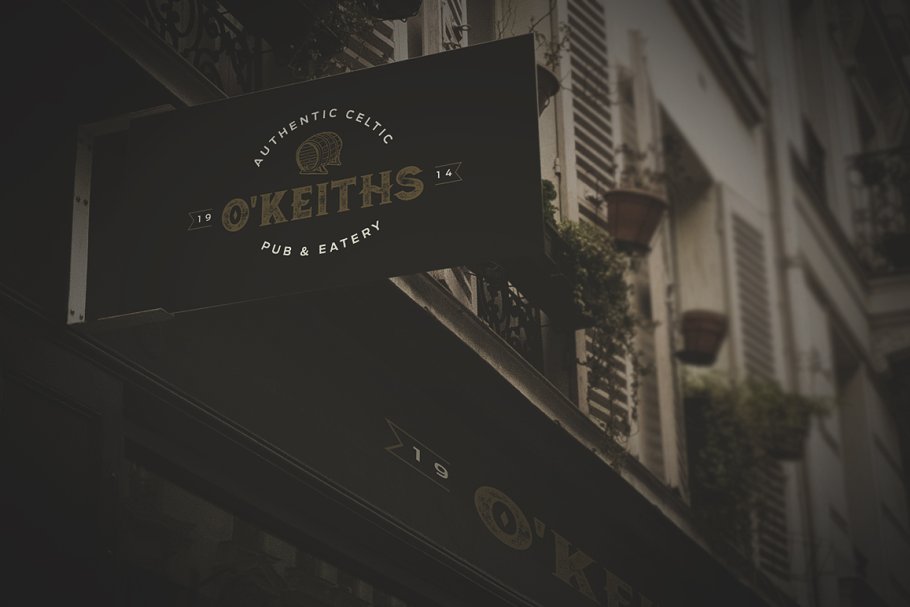
Looking for a font that will transport you back in time to the prohibitionist era? Look no further than Highbinder Display Font! This vintage-inspired serif font was created by the talented Sean Coady and is perfect for anyone who wants to add a touch of old-world charm to their designs.
One of the things that sets Highbinder Display Font apart from other vintage fonts is its versatility. It comes in both a clean and a rough style, so you can choose the one that best fits your project. And while the rough font file may be a bit larger, it's definitely worth the extra download time.
Highbinder Display Font supports latin languages, making it a great choice for designers all around the world. Whether you're creating logos, posters, mock-ups, or anything else, this font is sure to make your project stand out.